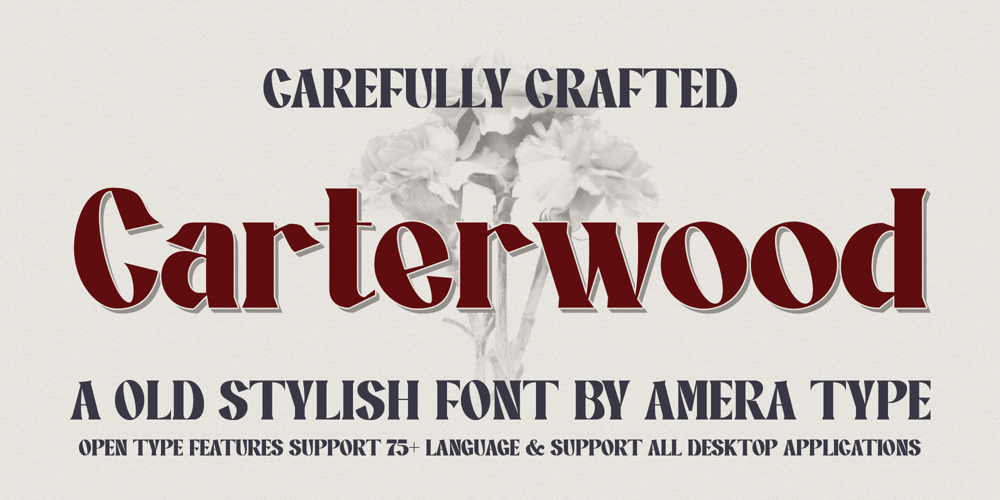
AT Carterwood Font Family was designed by Cahyadi Ikhsan and published by Amera Type. AT Carterwood contains 1 styles and family package options. Inspired by the old style serifs of 19th century print labels that have a classic touch in this modern eraCarefully crafted with lowercase and uppercase to complement this font as well as using variable bold and thin shapes to give a sense of beauty and strength to the letterformsCarterwood is great for designing posters, labels, sign paintings and other media to enhance your visual appearance